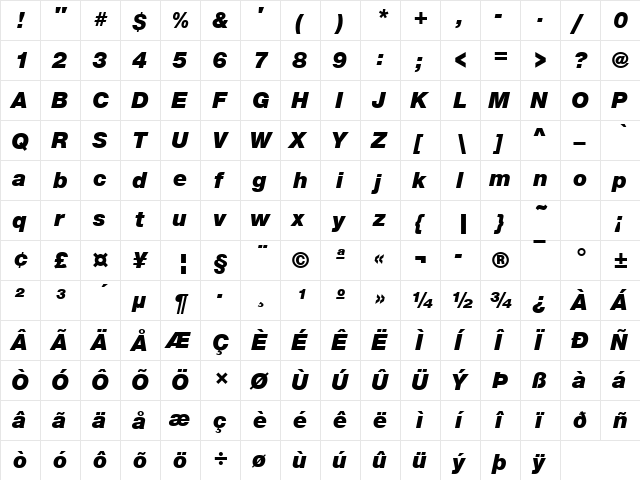
NimbusSanNovTBla Italic
Design Context for NimbusSanNovTBla Typeface
NimbusSanNovTBla offers clean, dependable letterforms without strong stylistic allegiance, making it a practical choice for designers who need flexibility. Its italic angle brings a sense of urgency and motion to the letterforms.
Pro Tip: Try NimbusSanNovTBla for annotation and caption copy alongside an upright companion — the contrast in angle creates a dynamic but ordered typographic system.